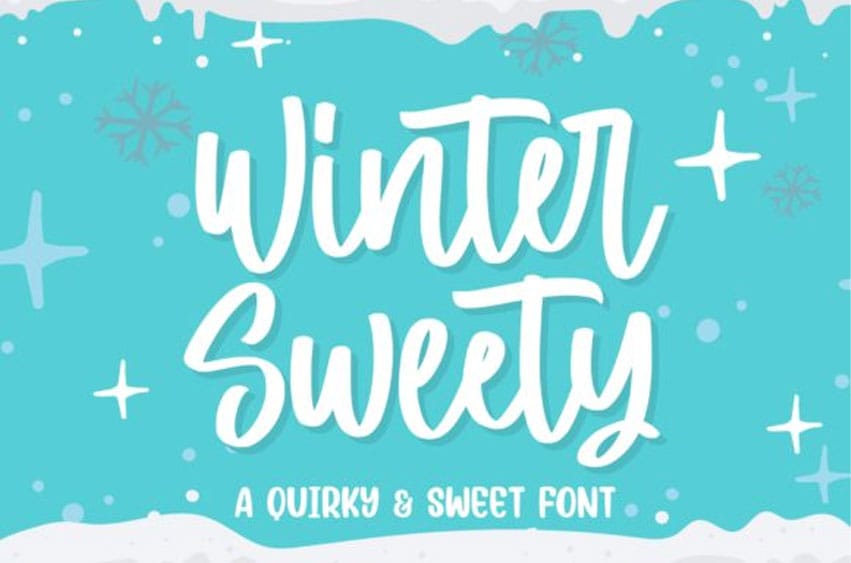
Winter Sweety Font is a quirky and playful handwritten font.
\It is ideal for holiday-themed greeting cards and for any crafting project that requires a joyful touch.